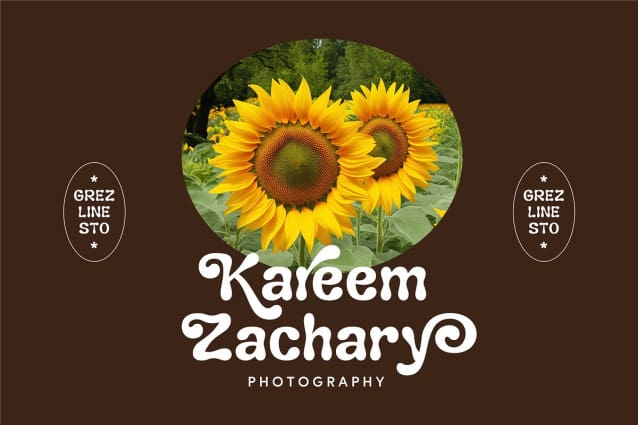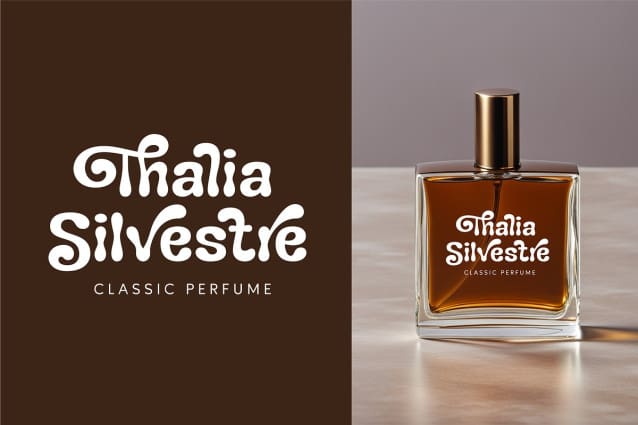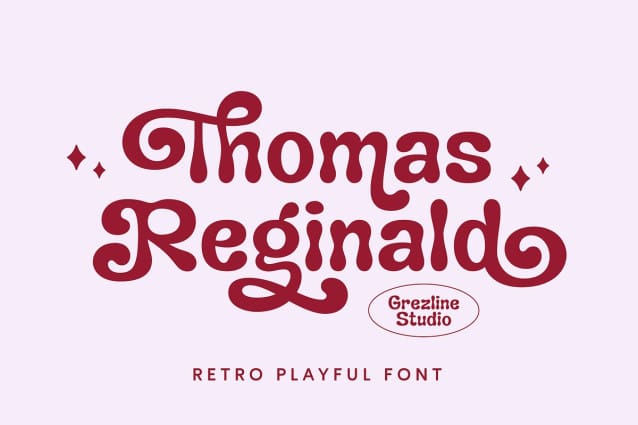
Thomas Reginald Font
Thomas Reginald Font is a retro, groovy, and playful font. This font is designed to captivate attention and delivers a funky and psychedelic vibe. ThomasReginald font is perfect for a design that requires a playful accent. It is suitable for book covers, posters, packaging, merchandise, logotype, and much more.